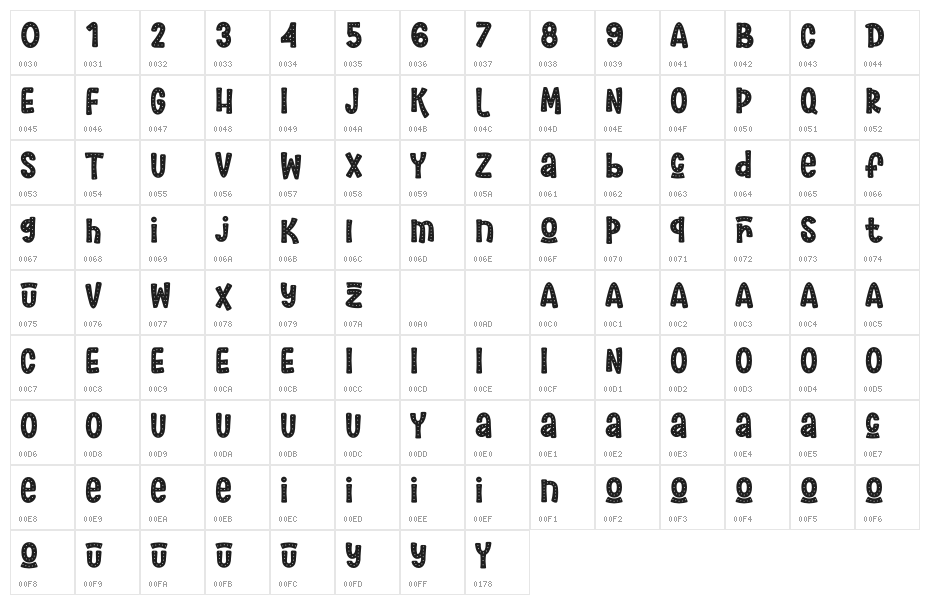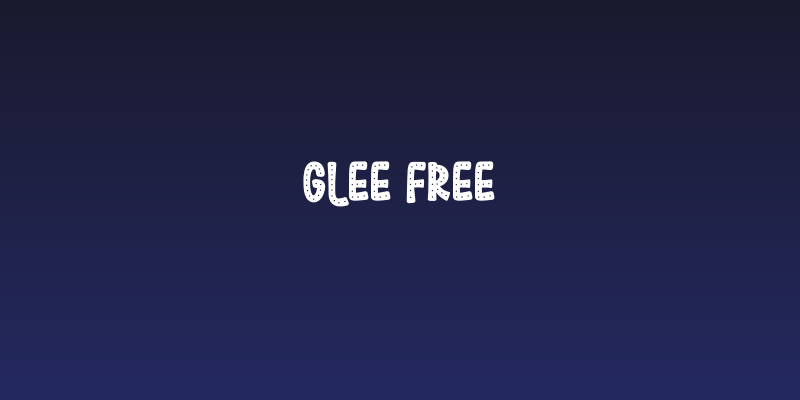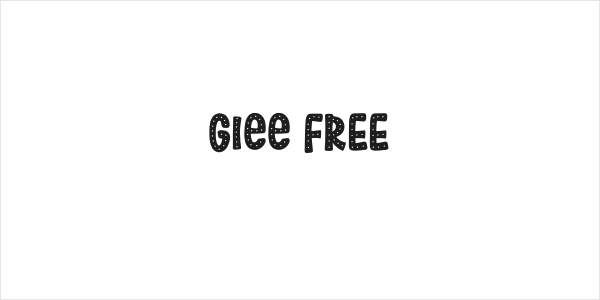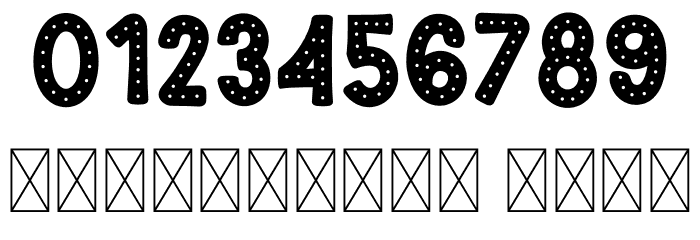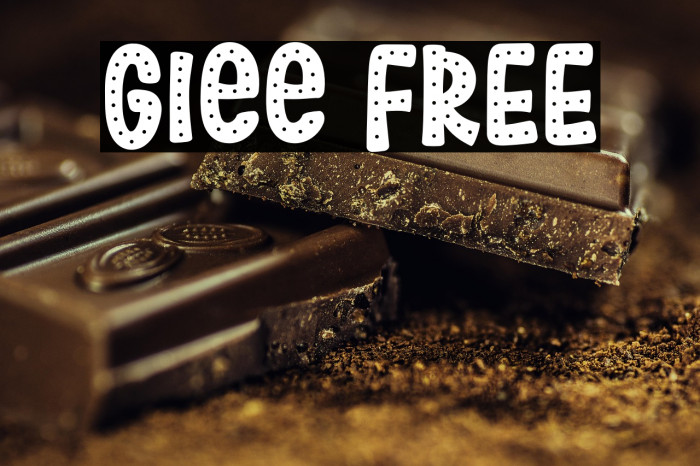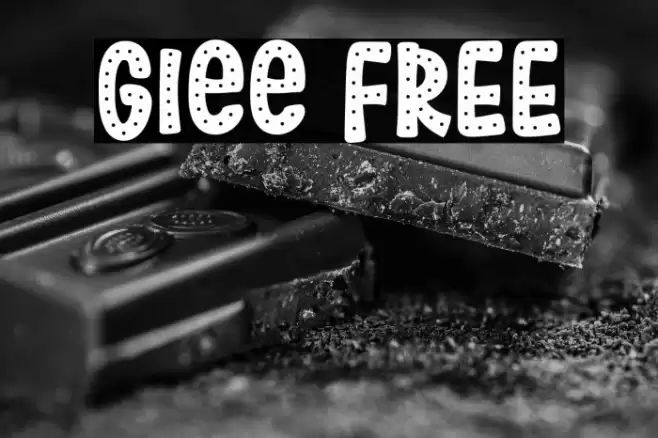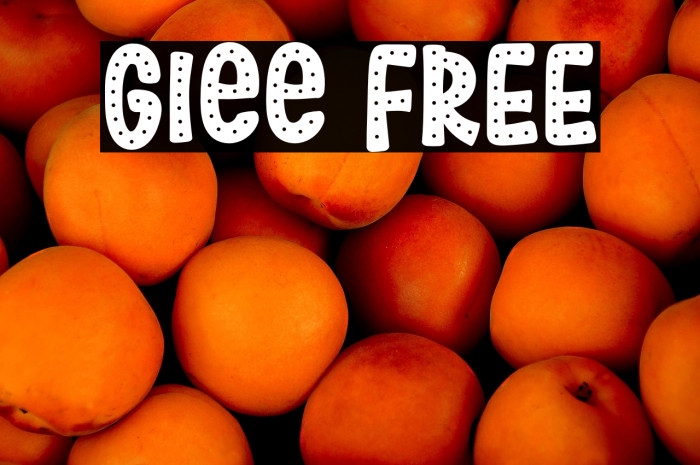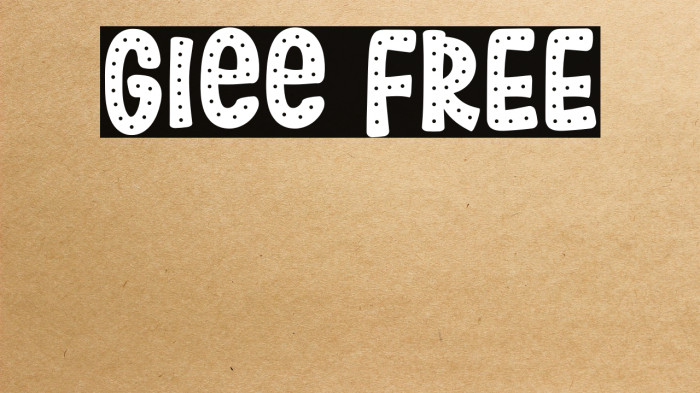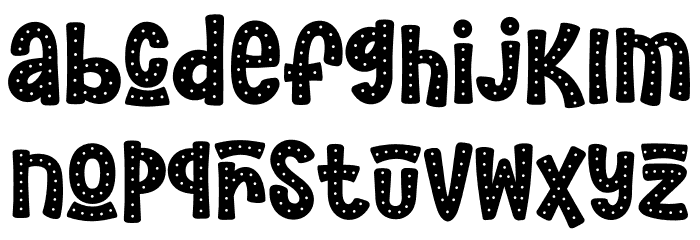
Glee FREE Font
Glee FREE Description
This playful and whimsical font features bold, rounded characters with a unique polka dot pattern inside each letter. The design is eye-catching and fun, making it ideal for projects that require a touch of creativity and joy. The uppercase and lowercase letters maintain a consistent style, with a slightly irregular shape that adds to the font's charm. Numbers are equally bold and decorated, ensuring a cohesive look across all characters. The font's decorative nature makes it perfect for children's materials, party invitations, and any design that aims to convey a sense of fun and excitement.
| Overall Style | Playful, Whimsical, Fun |
| Proposed Projects | Ideal for children's books, party invitations, playful branding, and creative posters. |